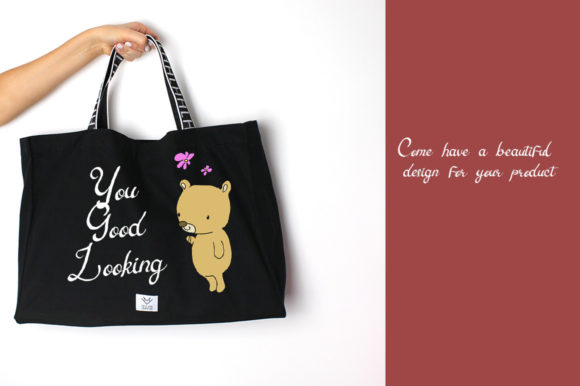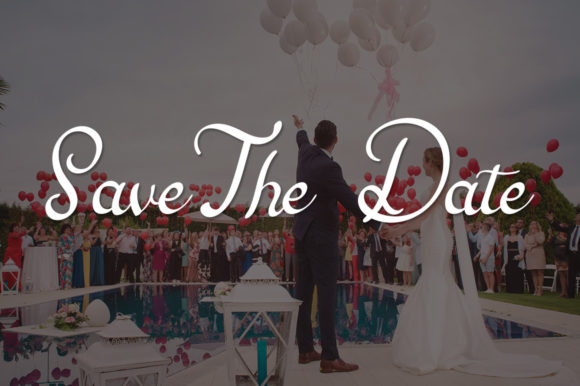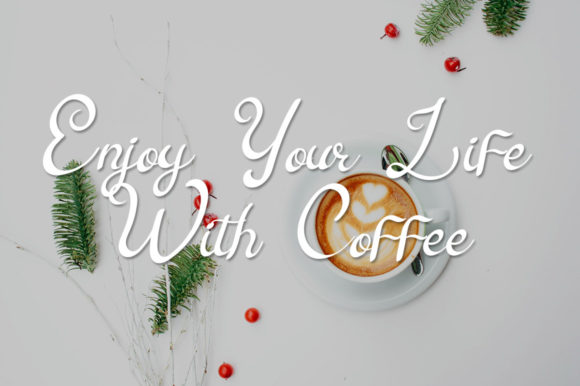
Introduction to December Signature Font
December Signature is a beautiful and sweet script font.
It is fresh, clean, and elegant This font will look amazing in a great amount of projects, both formal and informal.